10 Free Font Simple Elegant, Here are Recommendations For You
Free Font Simple Elegant
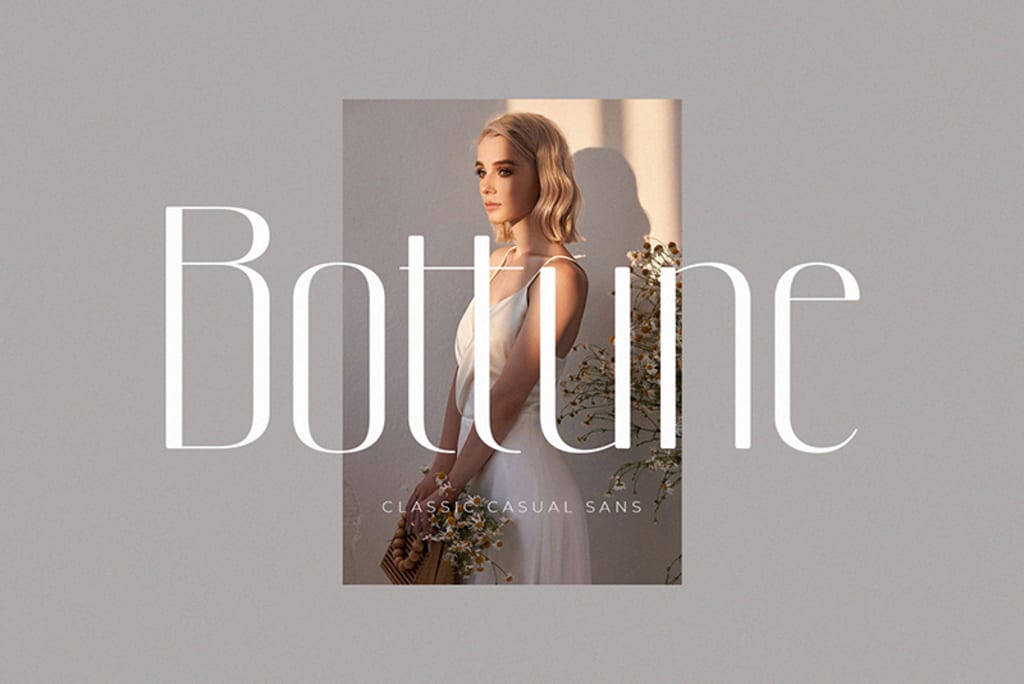
What makes the design look elegant is your perspective. A design is the result of creative thinking and the unique point of view of the designer itself. In other words, a design can represent its maker. The compilation of font simple and elegant is the best solution for those of you who love minimalist designs and are gorgeous effortlessly.
Free Font Simple Elegant for Adorable Designs
Choosing an elegant and simple font is the best way to create a design that looks effortlessly charming. You are required to think creatively from a different point of view than others. Here are some font recommendations for you.
1. Bellychester
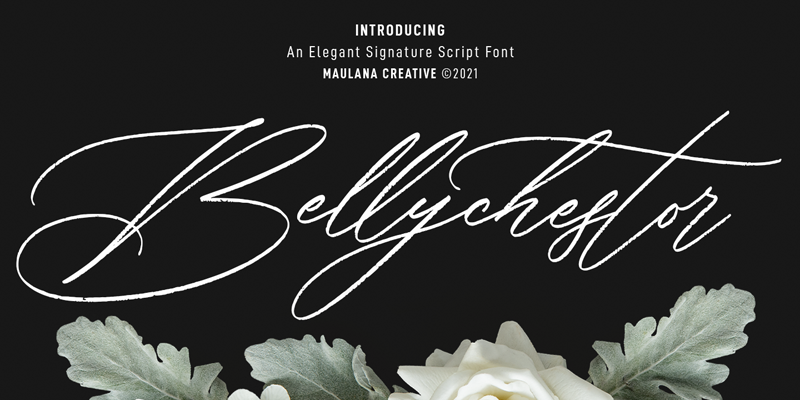
The first font you might like is Bellychester, a font that has a signature script-type design that can give a distinctive, elegant impression.
Every light stroke in each letter gives a simple but lovely impression. In addition, it is comfortable to read. The collection of letters from this font can be an option to fill a minimalist design and is suitable for alluring displays.
2. West Most
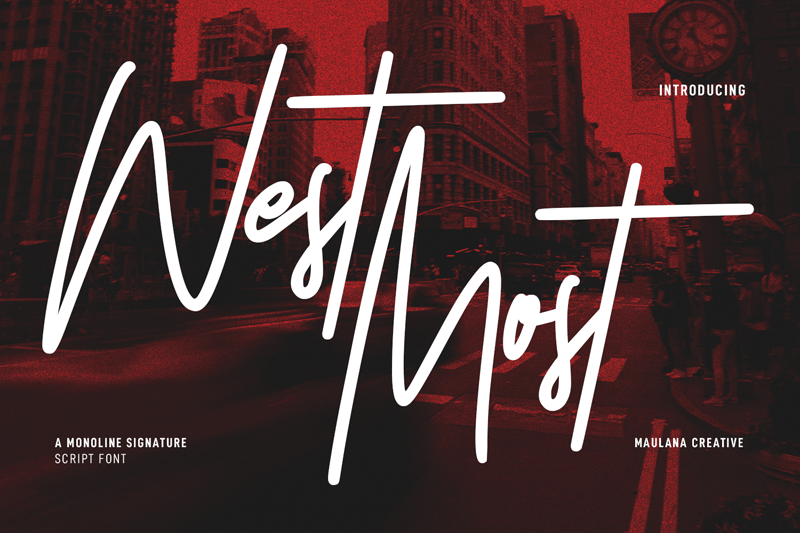
Switch to the second font, West Most. It is a simple elegant font that is suitable for your minimalist design. West Most have the charm of asymmetrical letters with a distinctive monoline design.
3. Nomark
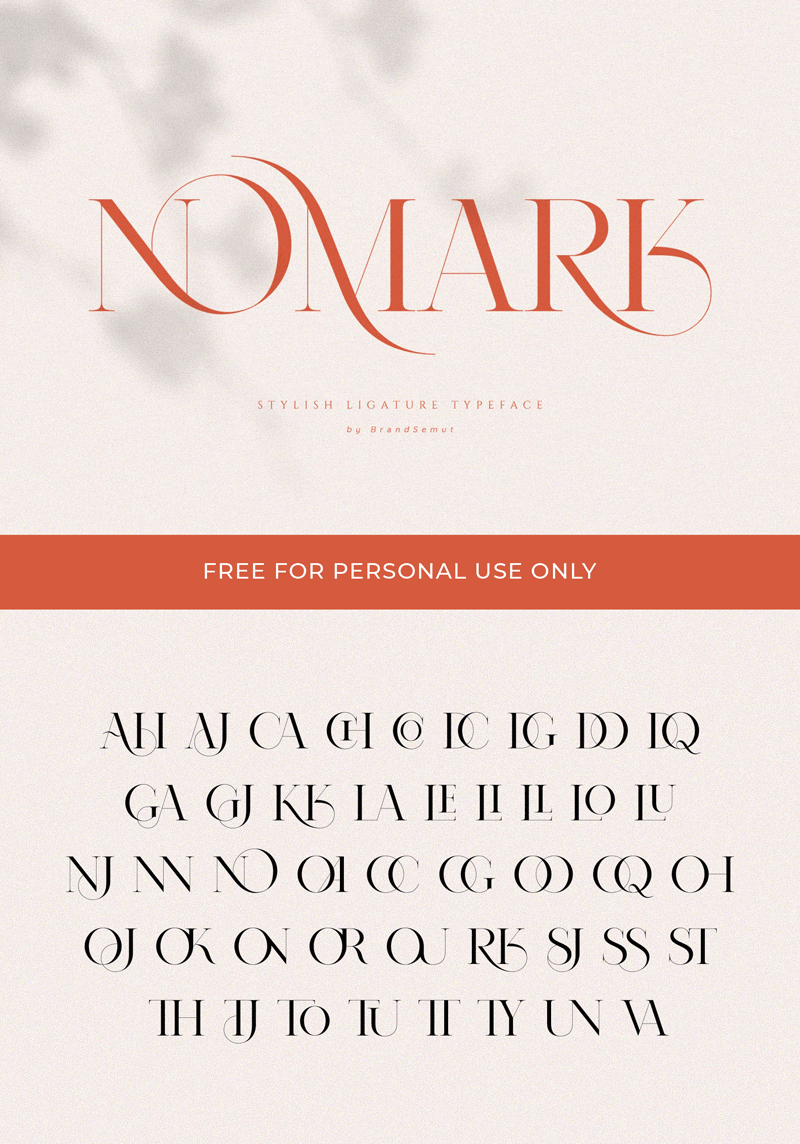
Elegant fonts are a collection of fonts with an artistic touch, beautiful even when there isn’t much going on. This collection of typefaces from Nomark can be one of the best options for your minimalist design.
Using this font will still give a simple but elegant impression. You can notice it instantly by looking at each letter’s beautiful and stylish curves.
4. Brush Signature
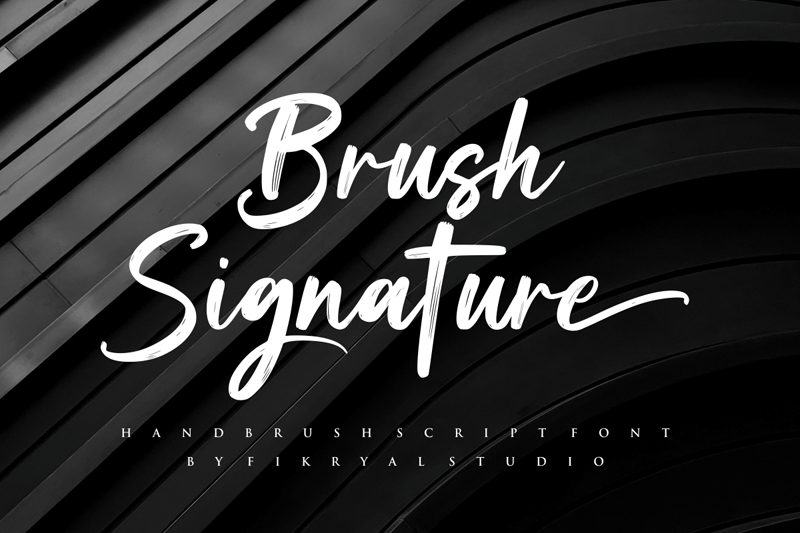
As you can see from its name, Brush Signature is a type of font that emphasizes the distinctive style of brush strokes. This font represents the beauty that naturally appears in each letter. A bold and elegant hand brush script font makes it suitable for many types of designs, even displays!
5. Miracle
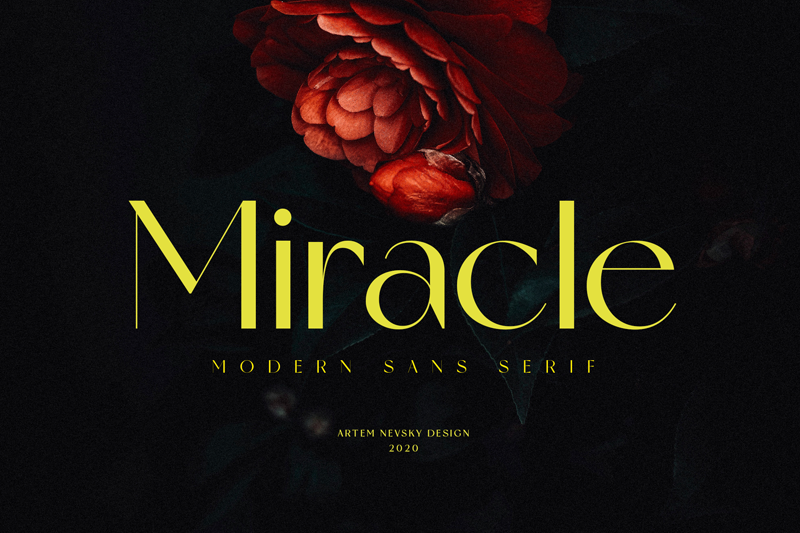
At first, glance, seeing the build of the letters from this Miracle font might remind you of many other typical sans serif fonts. But the interesting thing about this design is that you can mix this simple elegant font with many templates.
You can apply it to formal designs, displays, headings, subtitles, and even other semi-formal templates. One font for many elegant designs? Why not!
6. Beachfly
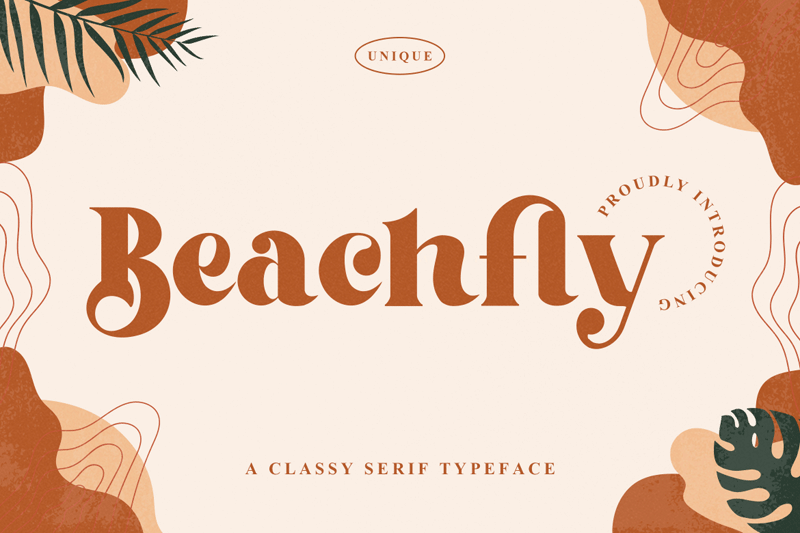
One sort of typeface font now has a variety of out-of-the-box designs. Beachfly is probably one of the fonts simple and elegant that promotes a much more cheerful impression.
The choice of letters on Beachfly tends to be semibold with eccentric curves. Using this font gives an elegant impression and a nuance that reminds us of retro fonts. Classic but classy!
7. Gashington Classy
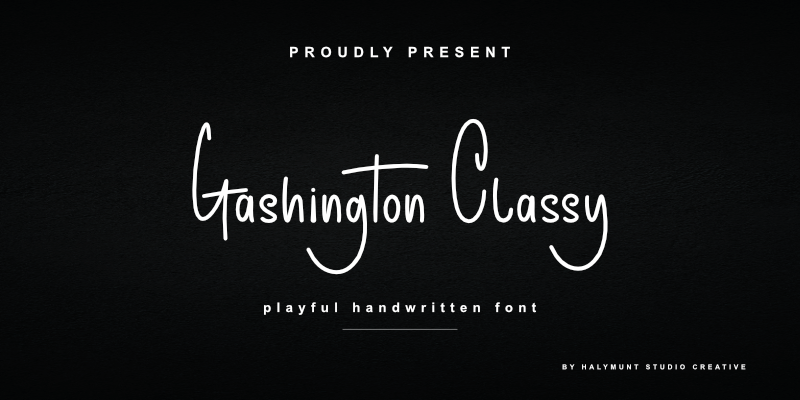
For those of you who fall in love with various types of handwritten fonts, then this Gashington Classy can be your best recommendation. It is probably more playful and neat handwriting. So, this font will suit applied to minimalism or even playful design.
8. Gistesy
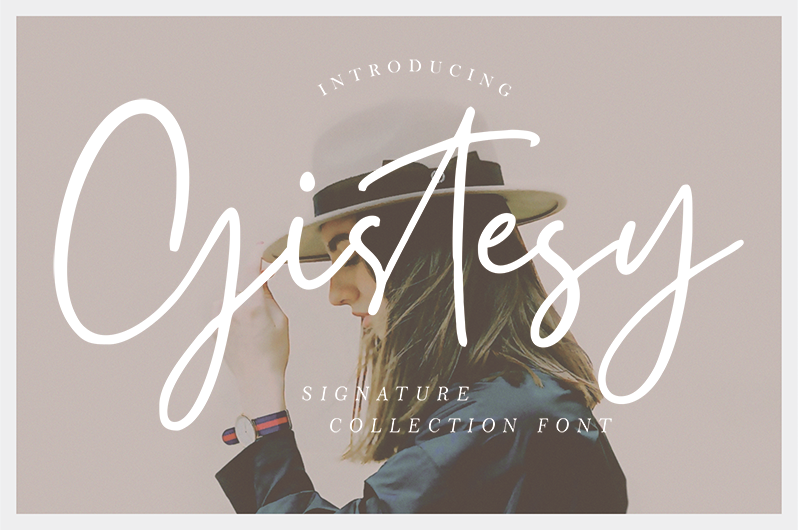
The next simple elegant font comes from a font with more casual signature letters. Every appearance of this Gistesy font is inspired by the calligraphy of lightly written letters. Gistesy font has a much more casual sense. The spacing between the letters also gives the impression of being relaxed and simple but still elegant.
9. Hugolers
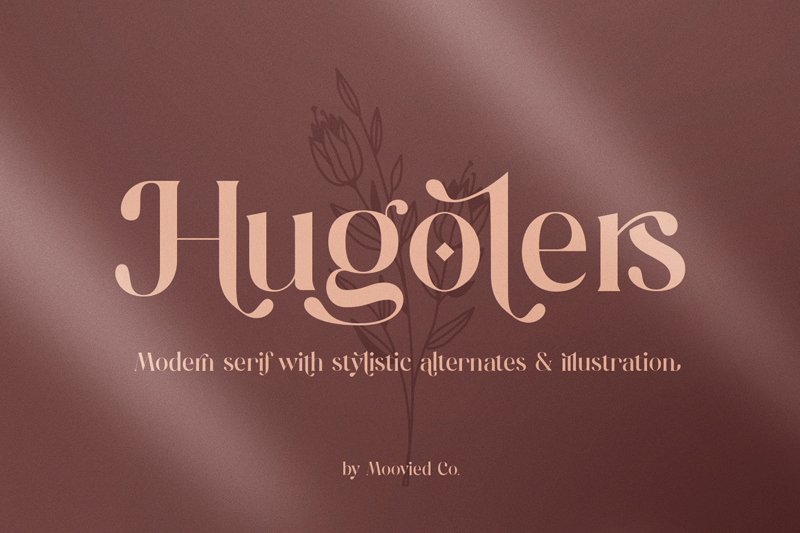
It may differ from other serif fonts, but Hugolers has its way of appealing to every designer. The modern serif looks and stylish illustration design make Hugolers an elegant and unique font. This font collection from Hugolers will be the best companion for minimalistic templates.
10. Bottune
Who knows that a standard sans serif alphabet sequence could be so much more beautiful with artistic touch? If you like the idea of a font simple elegant that still seems casual and basic but different from the others, then you should try Bottune.
Bottune has a way of making your designs even more perfect without eliminating the basic sans font designs.
Simple Elegant Font for Every Occasion
The interesting thing about the simple-but-elegant font type is that it always makes each template not exhausting, even in minimalist designs. Typical fonts that you can mix and match in formal or non-formal conditions at the same time.